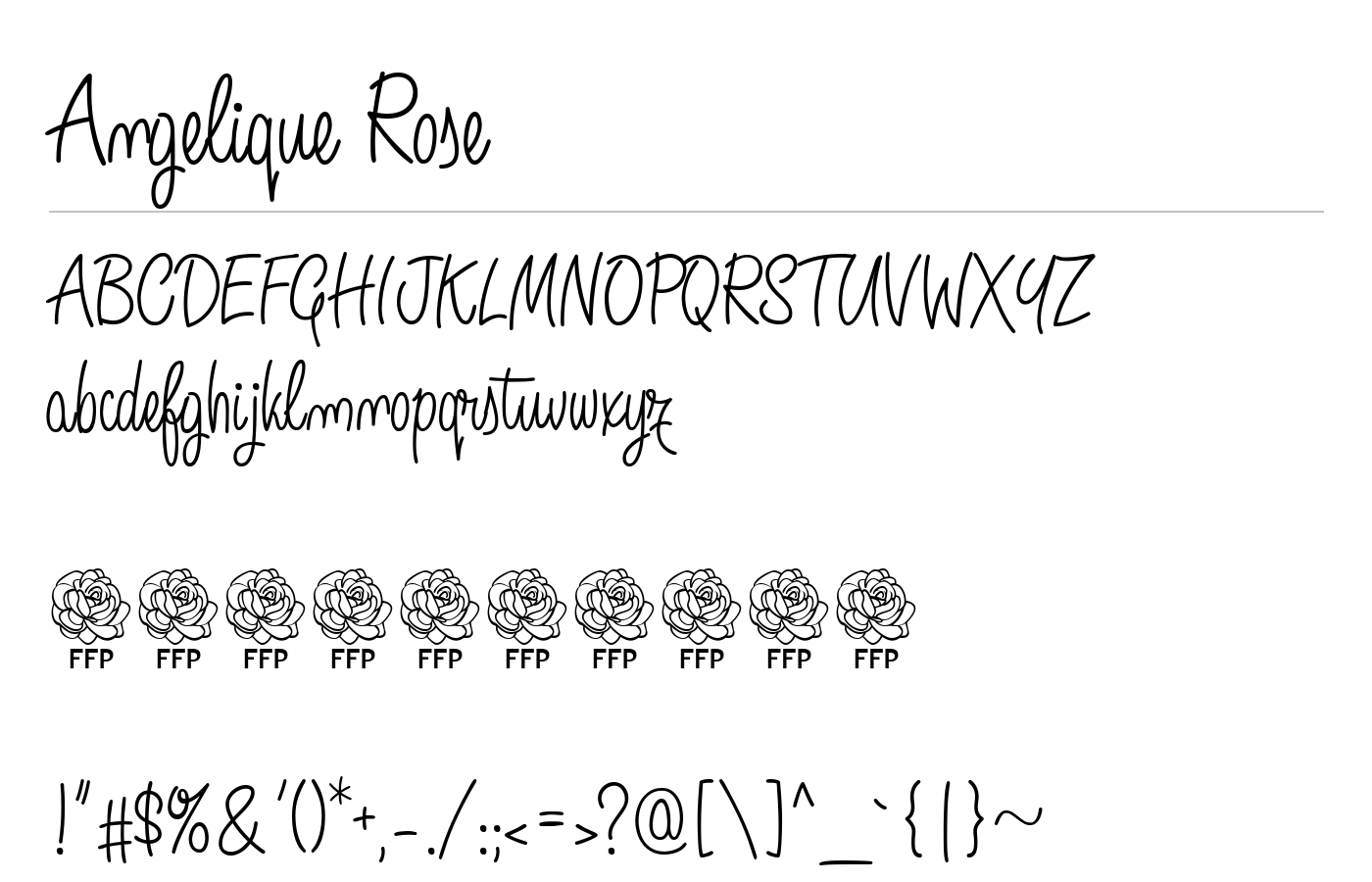
Angelique Rose is a light, handwritten script font with a charming and delicate feel, featuring tall, narrow letterforms and a playful, casual stroke style. Its elegant yet informal character makes it perfect for creative projects like invitations, greeting cards, and branding that seeks a personal, friendly touch. This font works well in headlines and decorative text where a warm, approachable vibe is desired.
Angelique Rose Font
About Angelique Rose Font